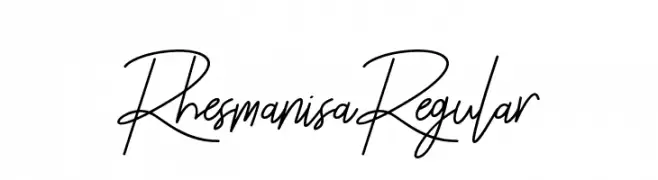
( dcoxy - Greg Medina - www.dcoxy.com/ )
A bold, cursive script font with elegant, flowing letters.
( dcoxy - Greg Medina - www.dcoxy.com/ )
A bold, cursive font with interconnected characters and a dynamic flow.
( dcoxy - Greg Medina - www.dcoxy.com/ )
A bold, cursive font with fluid, interconnected characters.
( dharmas - Jamaludin Ahmad - creativemarket.com/dharmas?u=dharmas )
A fluid, elegant handwritten cursive font with a modern touch.
( masterpiece_art - fontbundles.net/doel/products )
A bold, cursive font with fluid, connected characters and a dynamic style.
( memesbruh03 - Aaron D. Chand )
A pixelated, blocky font with a retro digital aesthetic.
( mlkwsn - Malik Wisnu )
A playful, bold, and rounded hand-drawn font with a whimsical style.
( rchdttf )
A playful, bold, hand-drawn font with interconnected characters.
( tabs4242 )
A casual, handwritten font with playful curves and irregular strokes.
( weknow - Wino S Kadir - www.creativefabrica.com/designer/weknow/ )
A bold, italic script font with smooth curves and a lively appearance.